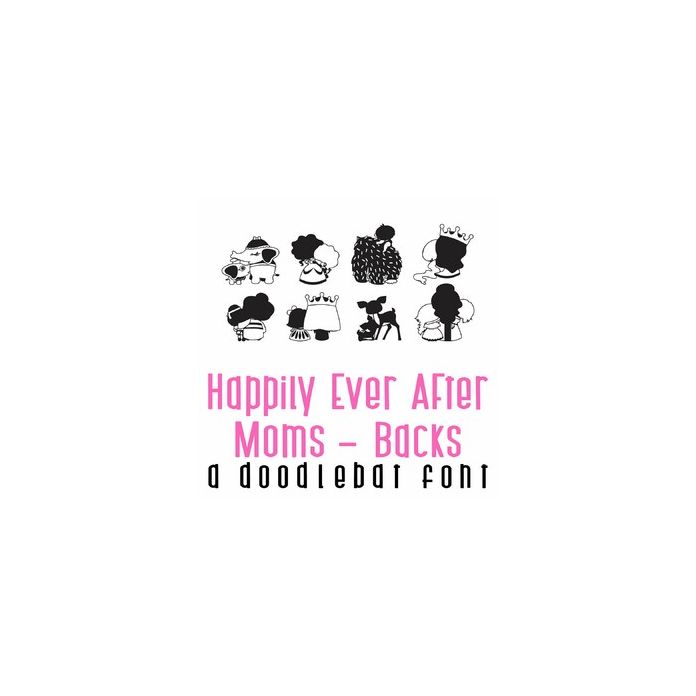
This adorable doodlebat font features 27 back sides of your favorite fairytale characters with their moms. Perfect for Mother's Day, parties, gifts, decor, card making, scrapbook pages, planner stickers, and more!